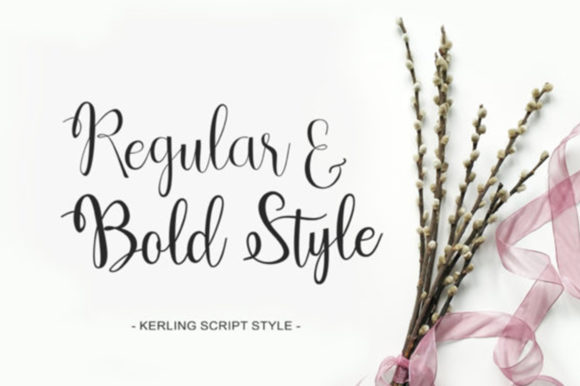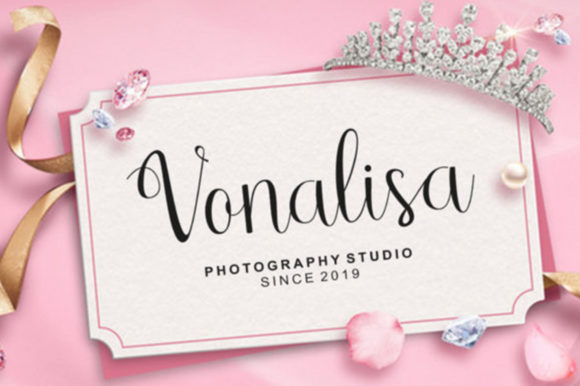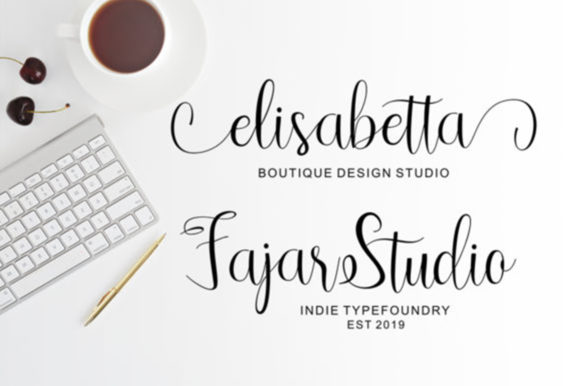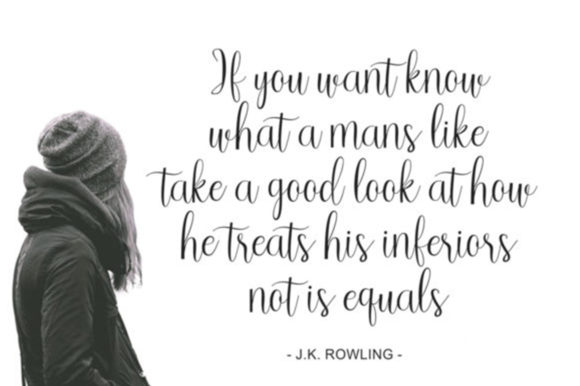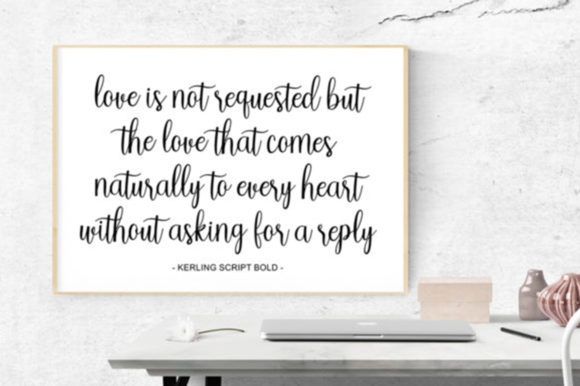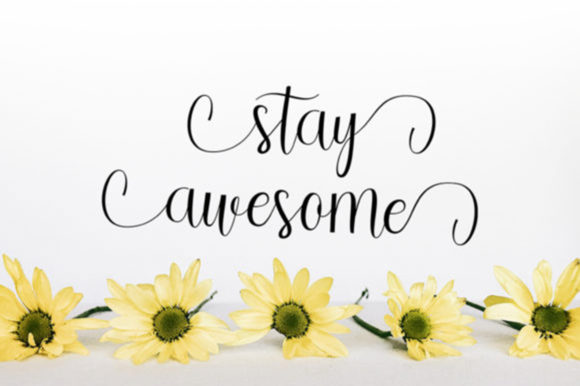
Kerling Script Font
About Kerling Script Font
Kerling is a sweet, soft hand-lettered script. The playful rounded characters make it the perfect font for creating stunning DIY projects. Kerling comes packed with stunning swashes, that will allow you to add a decorative touch within seconds. It comes in two stunning versions, Regular and Bold. Fall in love with its authentic feel and use it to create gorgeous wedding invitations, beautiful stationary art, eye-catching social media posts, and cute greeting cards.